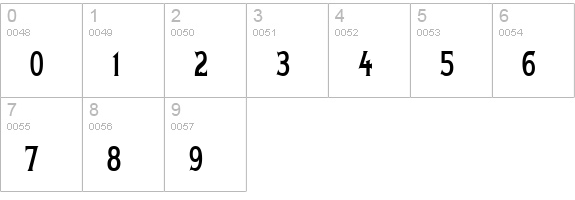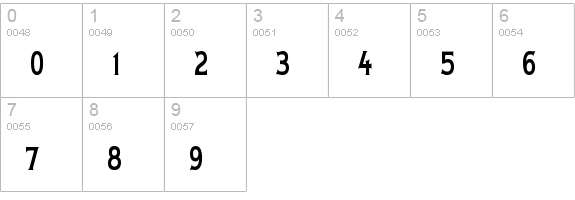
Lady Copra Narrow Font Details
Lady Copra Narrow is a distinctive, condensed-width variant in the Lady typeface family \xE2\x80\x94 well suited to design and typography projects.
Lady Copra Narrow is a stunningly elegant and stylish font that exudes sophistication and grace. With its slender and streamlined letterforms, this typeface captures attention effortlessly, making it perfect for a wide range of design projects. The clean lines and narrow proportions of Lady Copra Narrow create a sense of modernity and refinement, making it an excellent choice for high-end branding, editorial layouts, and fashion-related designs. Whether you're working on a magazine spread, a logo design, or an invitation card, this font will add a touch of elegance and class to your project. One of the best features of Lady Copra Narrow is that it is free! Yes, you read that right. This beautiful font is freely available to download at FontsMarket.com. Now you can enjoy the luxury and beauty of Lady Copra Narrow without having to spend a dime. The versatility of Lady Copra Narrow is another reason why it stands out from the crowd. It can be used for both headlines and body text, allowing you to create a cohesive and visually pleasing design. Its legibility and readability make it a perfect choice for both print and digital designs. To enhance your creative freedom, Lady Copra Narrow offers a wide range of glyphs, including multilingual support, various punctuation marks, and stylistic alternates. This ensures that you have all the tools you need to create stunning designs that truly reflect your vision. In conclusion, Lady Copra Narrow is a truly remarkable font that combines elegance, versatility, and the best part – it's free! Thanks to FontsMarket.com, you can easily access and download this font to elevate your design projects to new heights. So why wait? Go ahead and unleash your creativity with Lady Copra Narrow.